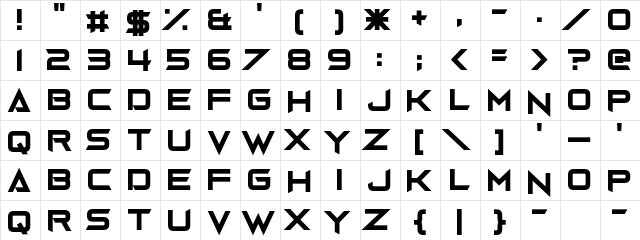
Gravedigger Regular
| Designer | NAL |
Design Context for Gravedigger Typeface
Gravedigger takes a measured approach to typography — its balanced proportions and neutral character make it a reliable workhorse for both digital and print work.